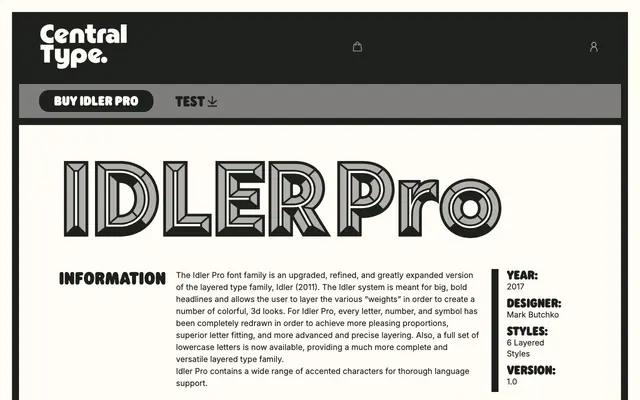
Idler Pro
A text serif from Central Type, designed for editorial and long-form typesetting.
Idler Pro is a text serif from Central Type suited to editorial and print applications. The 'Pro' designation implies an extended character set and refined spacing intended for professional publishing contexts. Its traditional construction makes it a dependable choice for body text across magazines and books.
The name and 'Pro' designation suggest a refined text serif with traditional roots; without more specific page data, a transitional serif classification fits the Central Type catalogue's editorial focus.